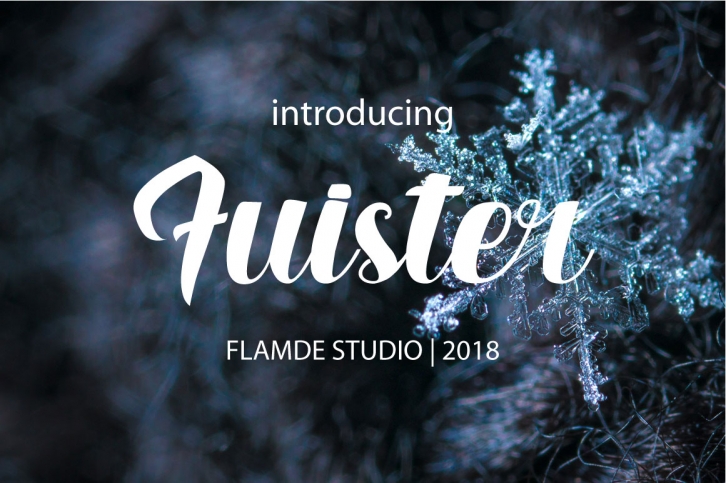
Fuister Script is a great font that was designed by Astageni. Imagine the amount of combinations you can create using this font! The archive is 8.30 MB and it was released on October 26, 2018. Fuister Script looks beautiful on wedding invitations, greeting cards, logos, posters, labels, t-shirt designs, logos, business cards and is perfect for use in ink or watercolor works, fashion, magazines, packaging and food menus, children's books and more!